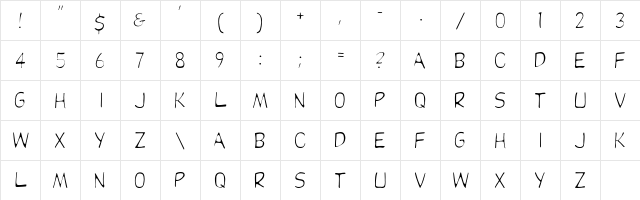
DupuyLight Regular
Design Context for DupuyLight Typeface
DupuyLight takes a measured approach to typography — its balanced proportions and neutral character make it a reliable workhorse for both digital and print work. Its slender proportions lend an understated elegance to any composition.